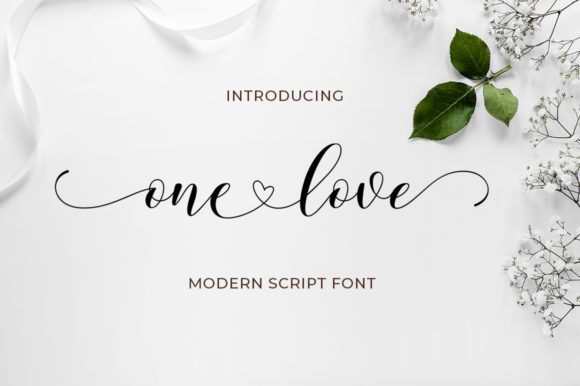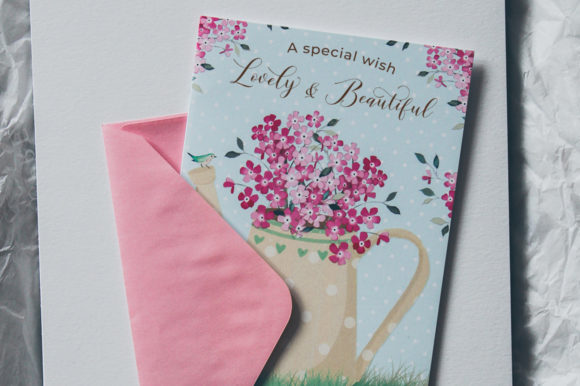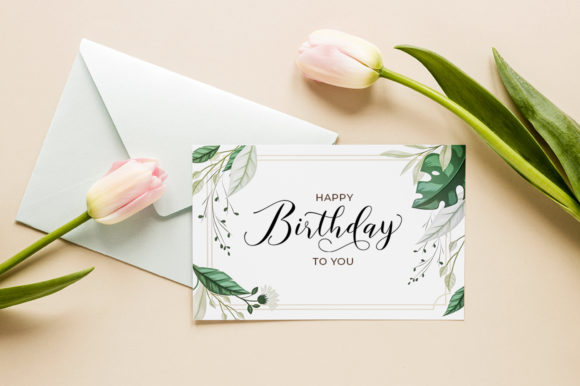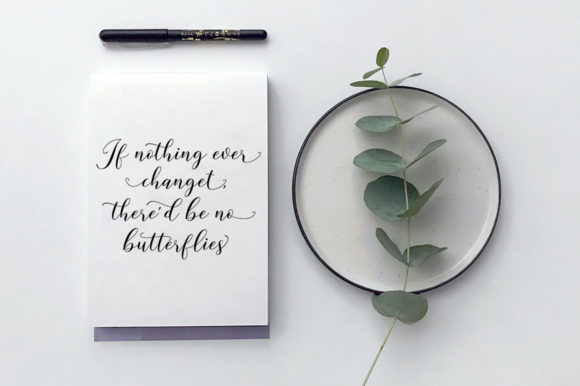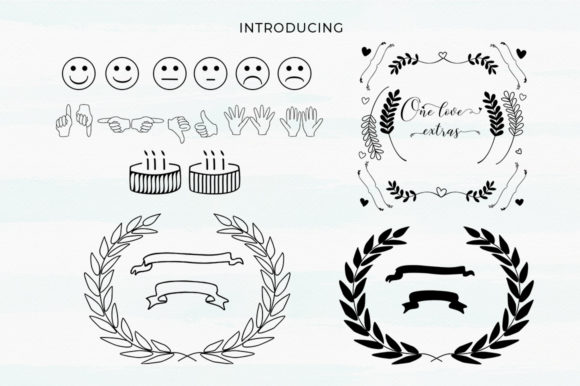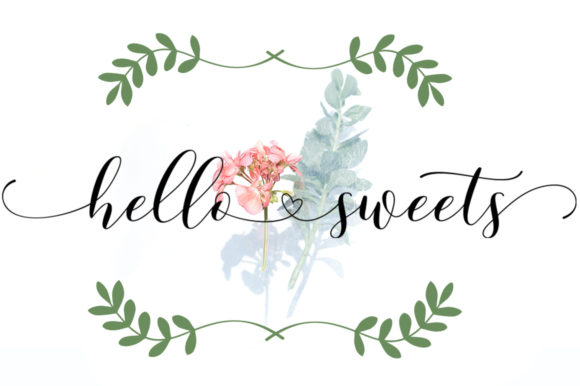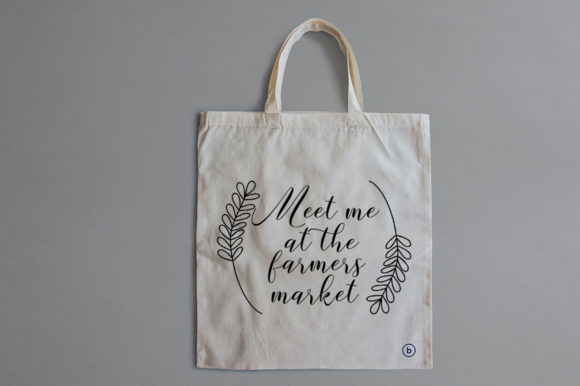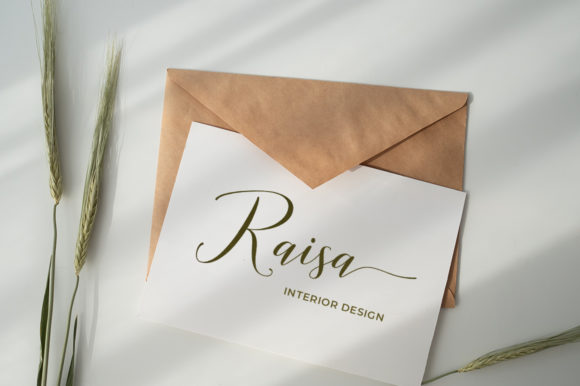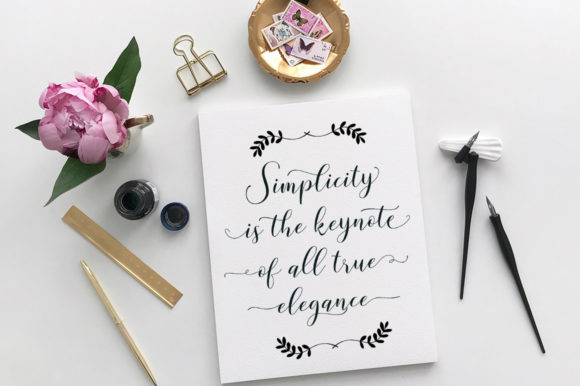
One Love Font
About One Love Font
One Love is a cute and casual handwritten font with an incredibly friendly feel. It features gorgeous swashes and ligatures that make this script incredibly versatile. It also features cute doodles. Whether you’re looking for fonts for Instagram or calligraphy scripts for DIY projects, One Love will turn any creative idea into a true piece of art!